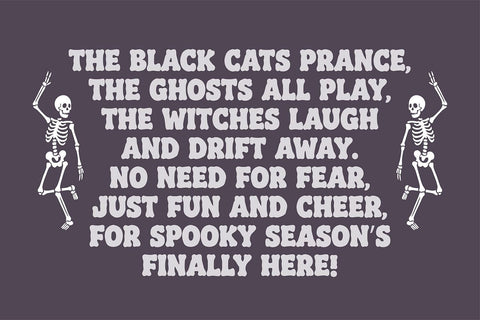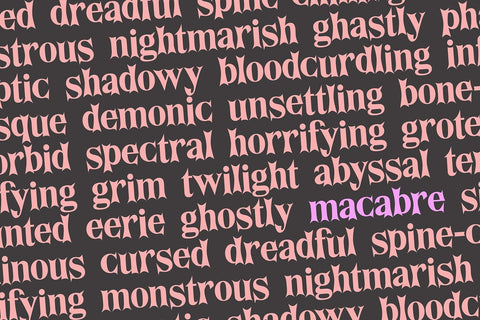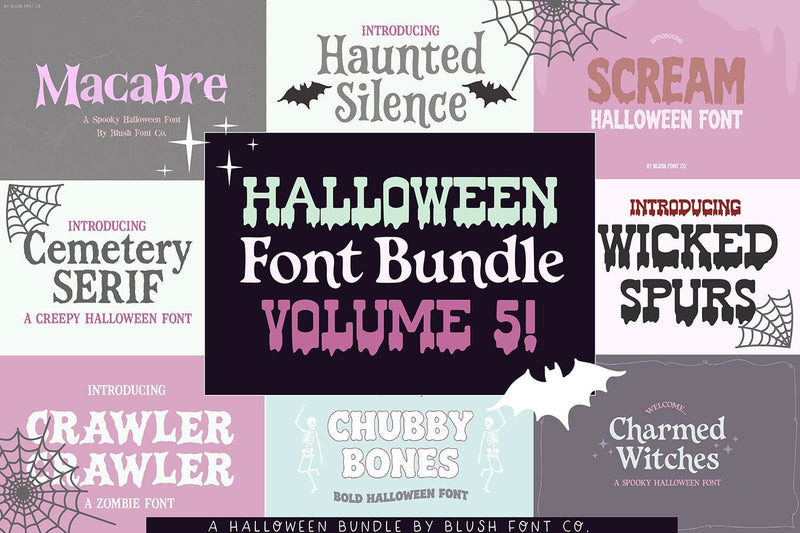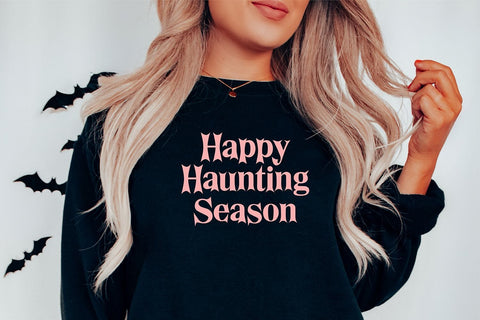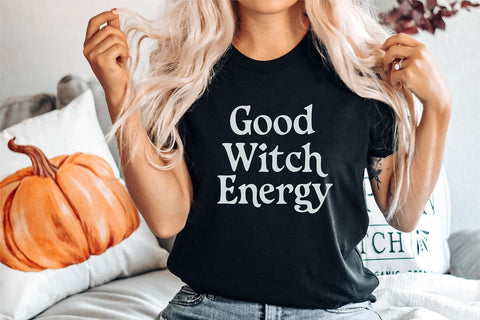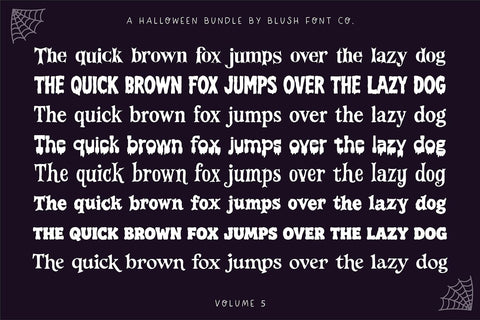
Halloween Font Bundle Volume 5
HALLOWEEN FONT BUNDLE VOL. 5! This bundle includes 8 spooky fonts!
The 8 fonts included are:
MACABRE
HAUNTED SILENCE
CRAWLER
WICKED SPURS
CHUBBY BONES
SCREAM
CHARMED WITCHES
CEMETERY SERIF